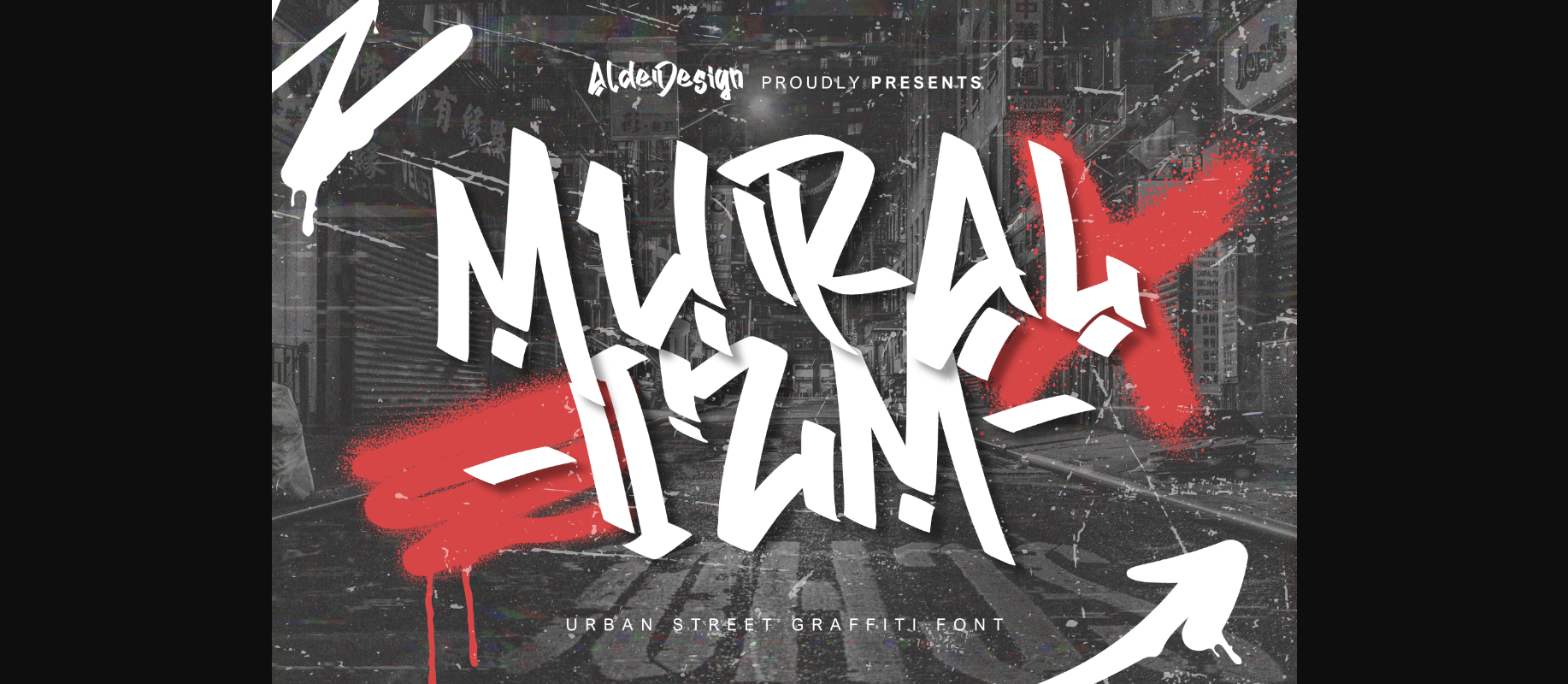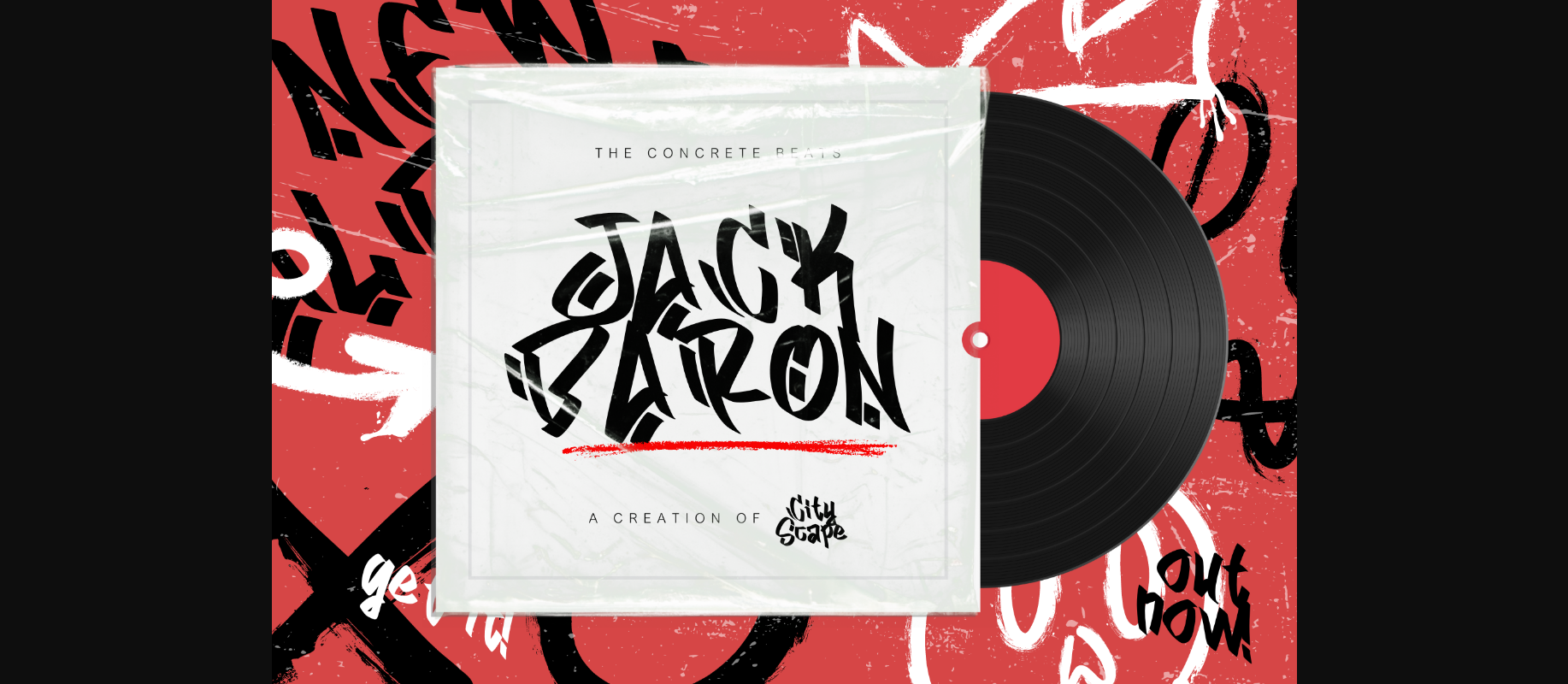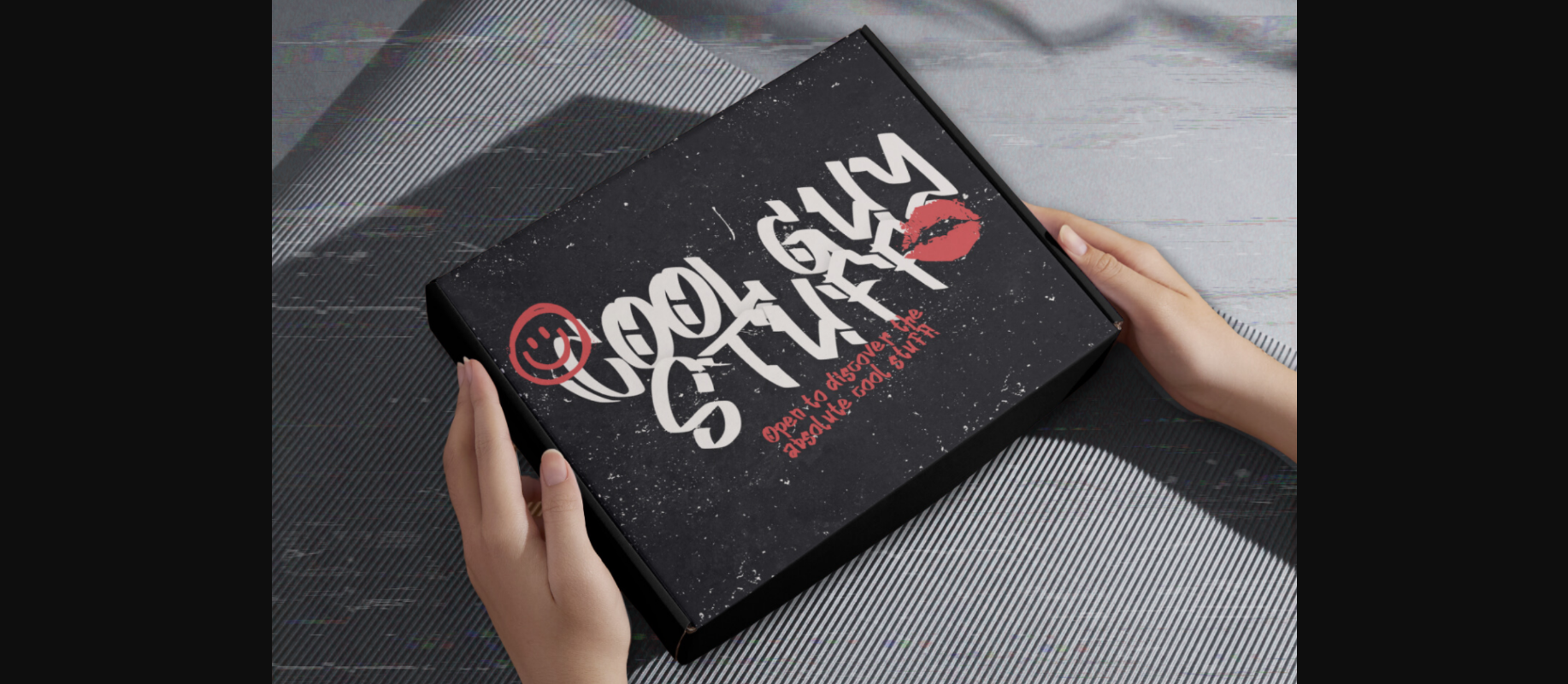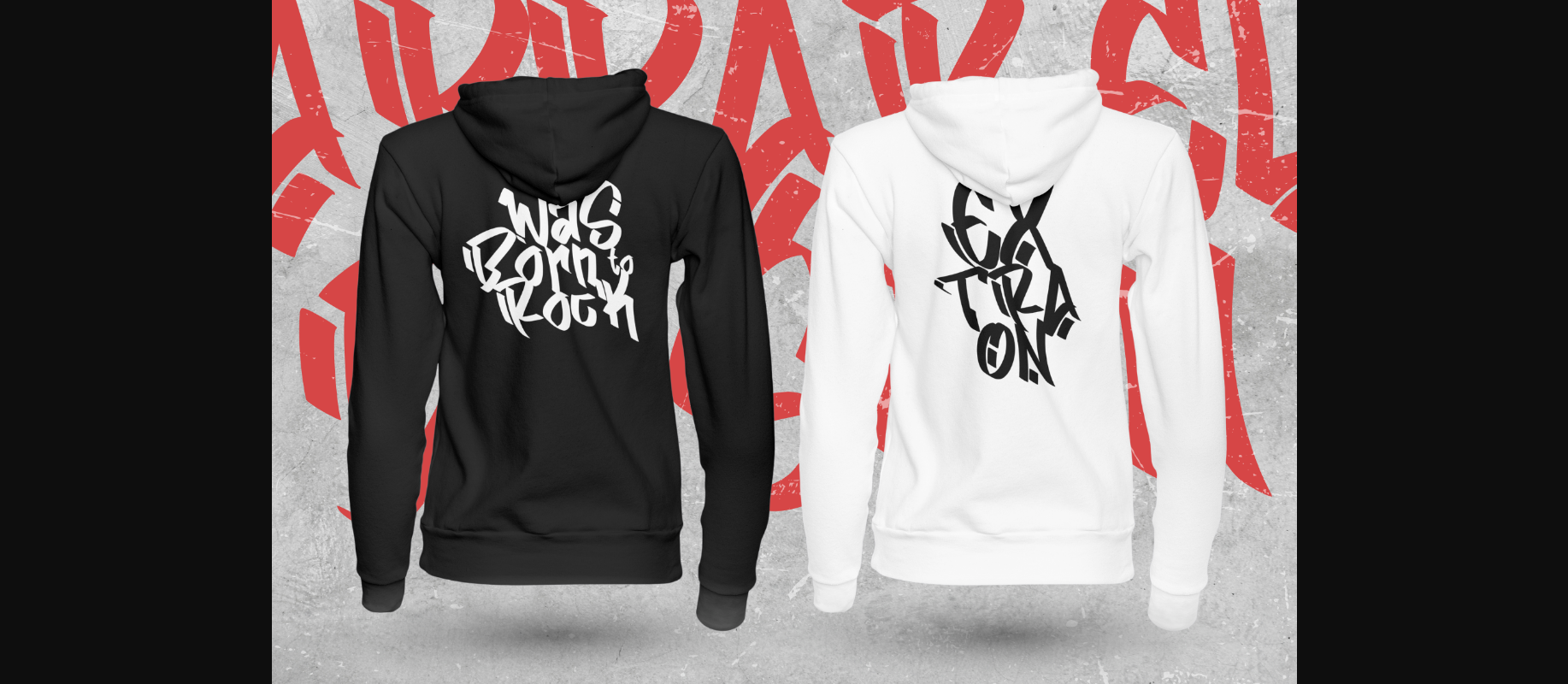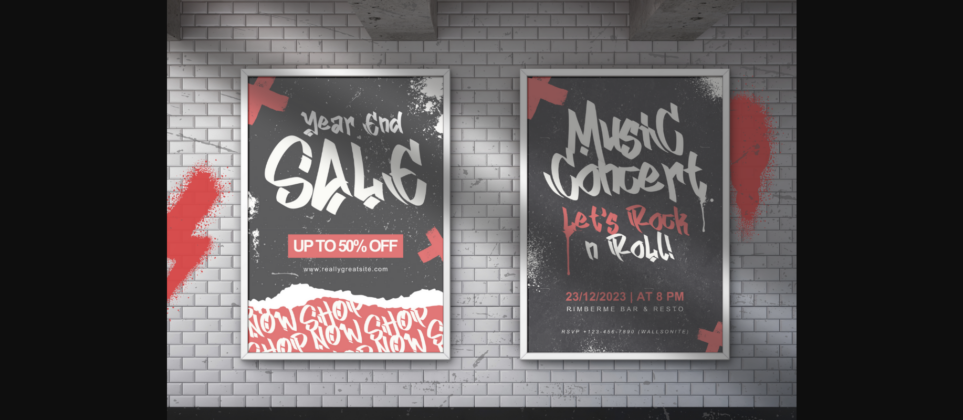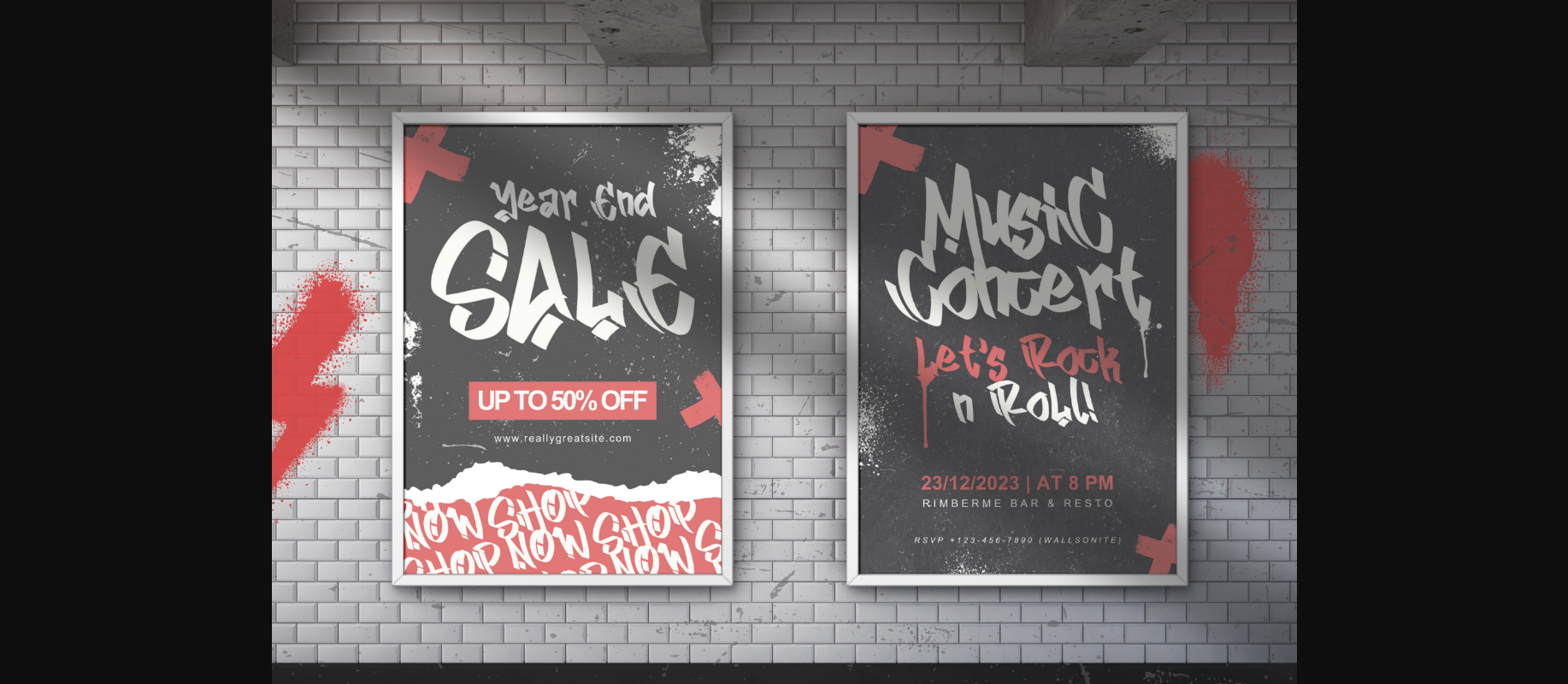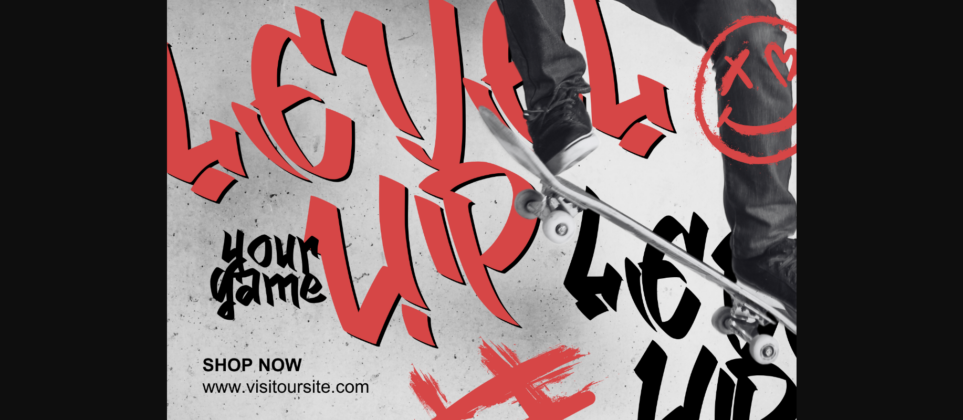
About Muralizm Font
Our graffiti-inspired typefaces redefine digital expression by capturing the raw energy and vibrant spirit of urban streets. From the bold strokes reminiscent of spray paint to the edgy characters that speak volumes, our collection allows you to infuse your designs with the dynamic essence of the city. Whether you’re tagging virtual walls or unleashing your creativity on digital canvases, our fonts provide the perfect tools to make your words pop and your message resonates with authenticity.